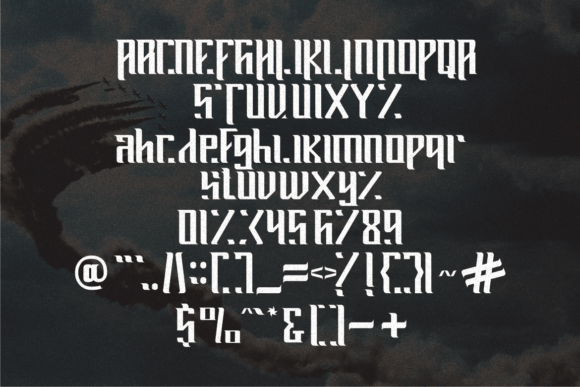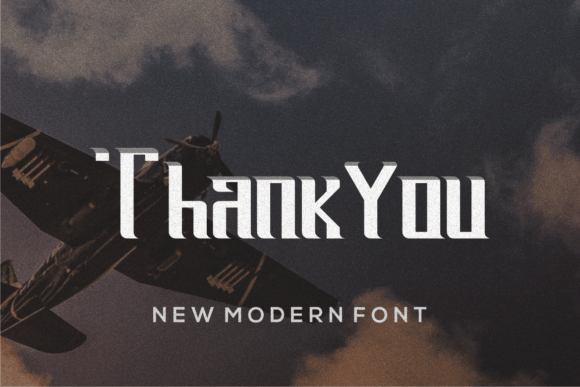
Candara Font
CANDARA FONT SPECIMEN
Cadara is a modern slab serif font that feels beautiful, classy, and bold. This font is perfectly suited for a wide variety of projects, such as signature, stationery, logo, wedding, typography quotes, magazine or book cover, website header, clothing, branding, packaging design, and more.